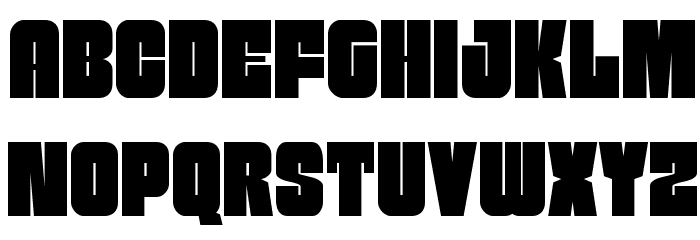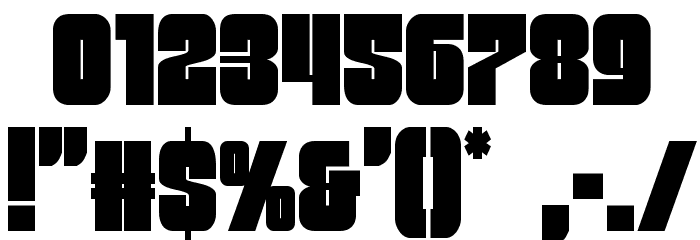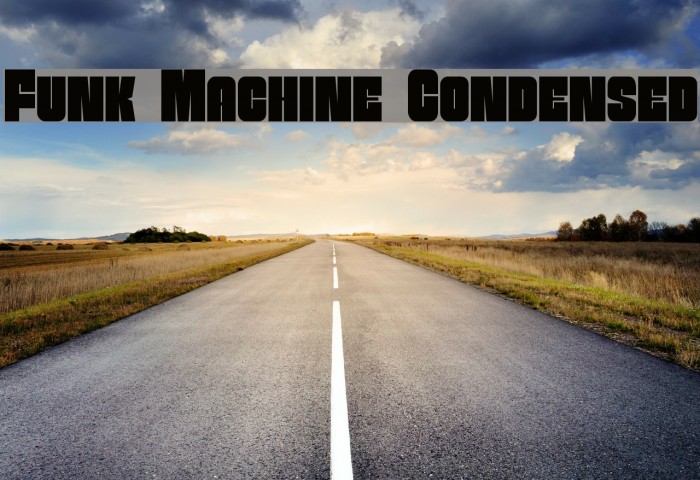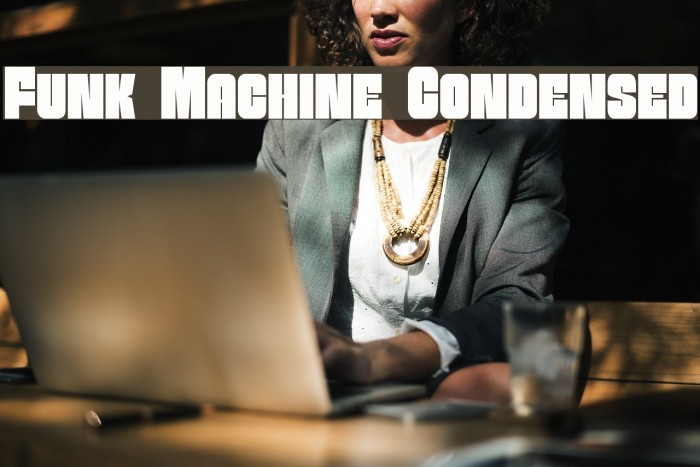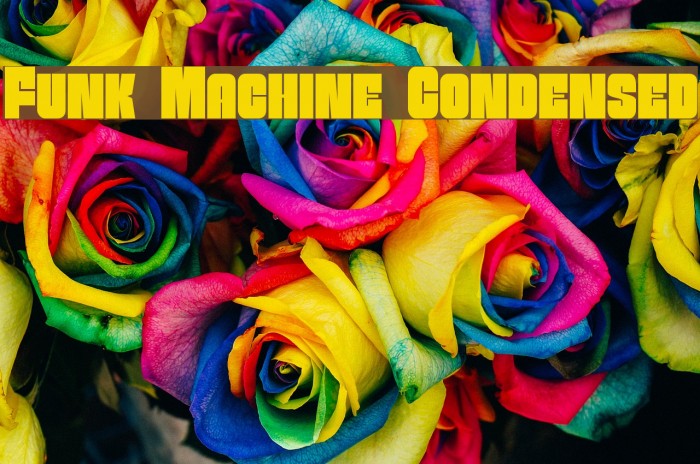
Funk Machine Condensed Font
This font is a bold, condensed typeface that exudes a strong, impactful presence. Its thick, uniform strokes and tight spacing create a sense of urgency and power, making it ideal for attention-grabbing headlines and statements. The characters are blocky and geometric, with minimal contrast between thick and thin strokes, contributing to its modern and assertive style. The uppercase and lowercase letters maintain a consistent height, enhancing its compact appearance. The numerals and special characters are equally robust, ensuring a cohesive look across all text elements.
A bold, condensed typeface with a strong, impactful presence.
- Font: Funk Machine Condensed
- Weight: Condensed
- Proposed Projects: Ideal for posters, banners, and branding materials where a strong visual impact is needed.
- Character Spacing: Tight